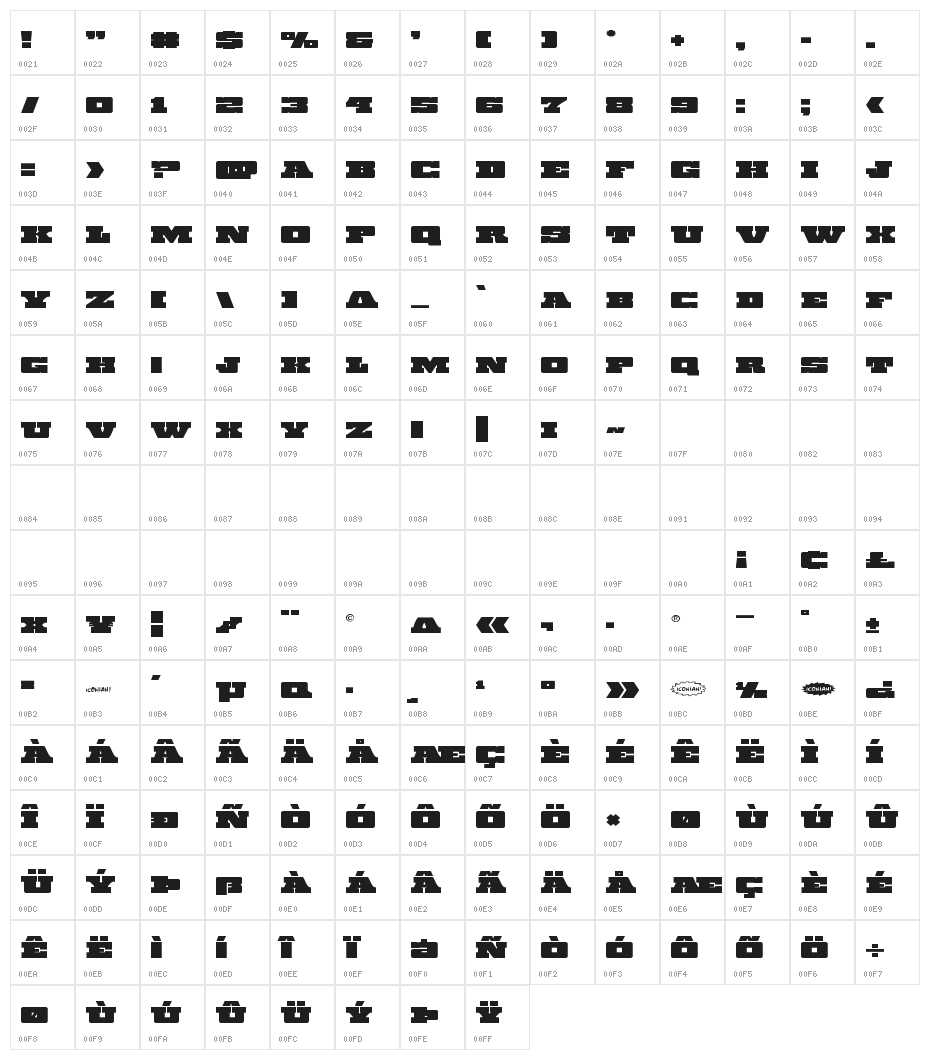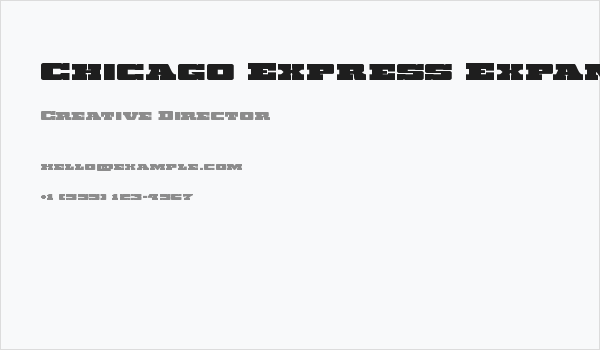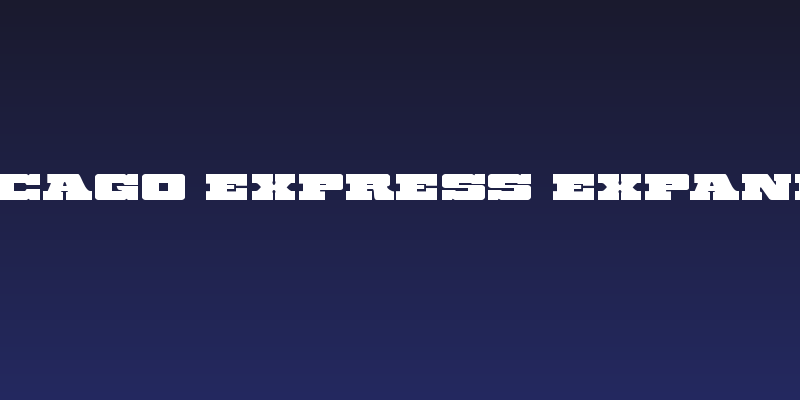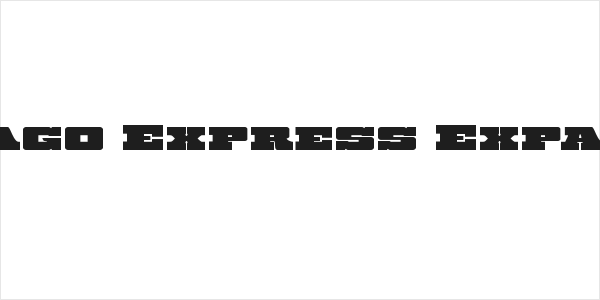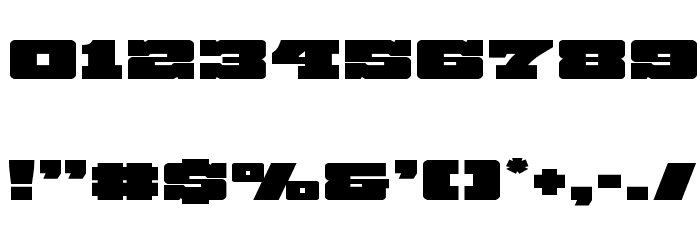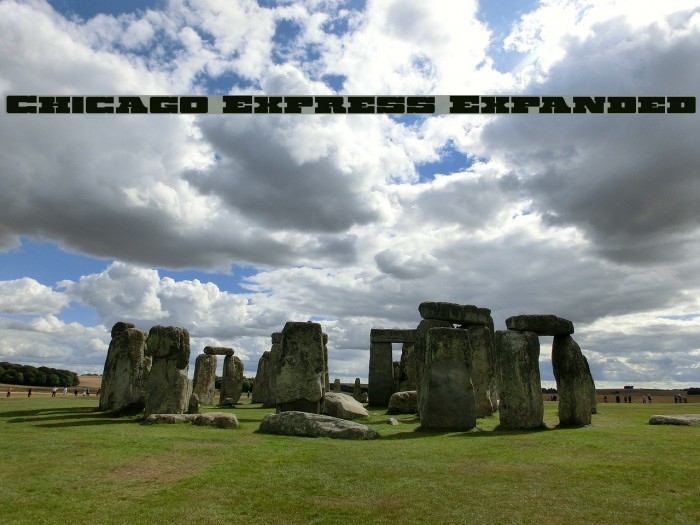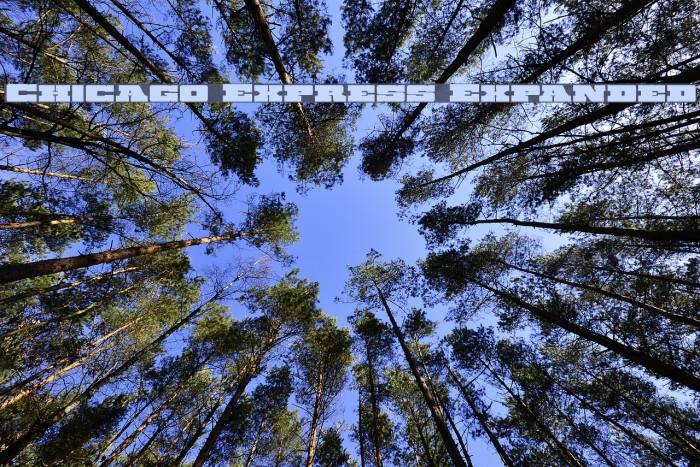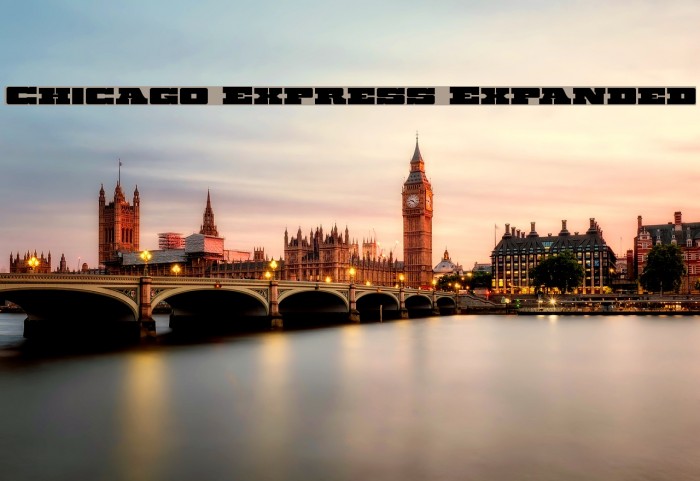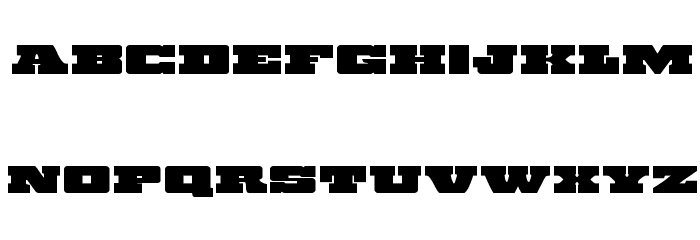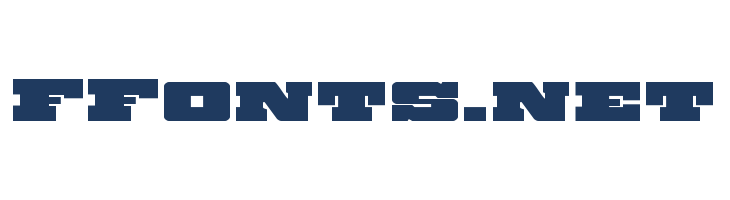
Chicago Express Expanded Font
Chicago Express Expanded Description
This font features a bold, expanded style with strong geometric shapes and a robust presence. The characters are uniformly wide, creating a sense of stability and power. The uppercase letters are particularly striking, with thick strokes and minimal contrast, giving them a block-like appearance. The numbers and special characters maintain the same boldness, ensuring consistency across all elements. This font's design is reminiscent of industrial or sports themes, making it ideal for attention-grabbing headlines or impactful logos.
| Proposed Projects | Ideal for sports branding, industrial-themed designs, bold headlines, and impactful logos. |